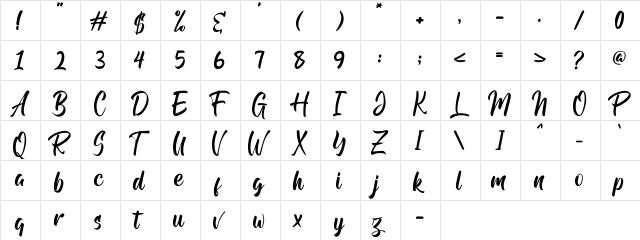
Andhibath Demo Regular
Design Context for Andhibath Demo Typeface
Andhibath Demo is a composed and adaptable typeface that performs quietly and consistently across a wide range of design contexts.